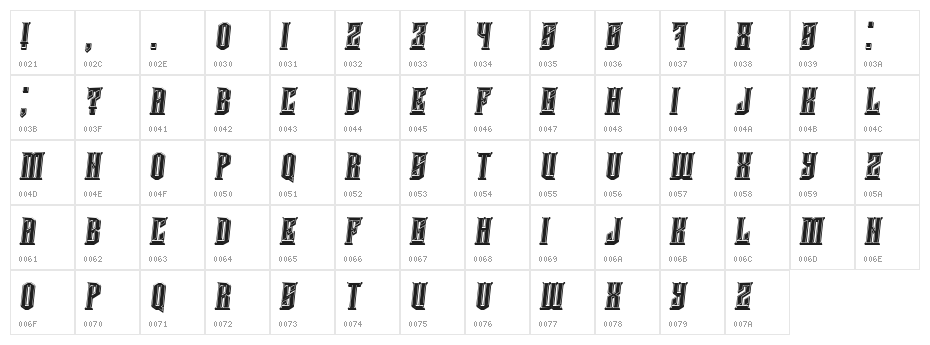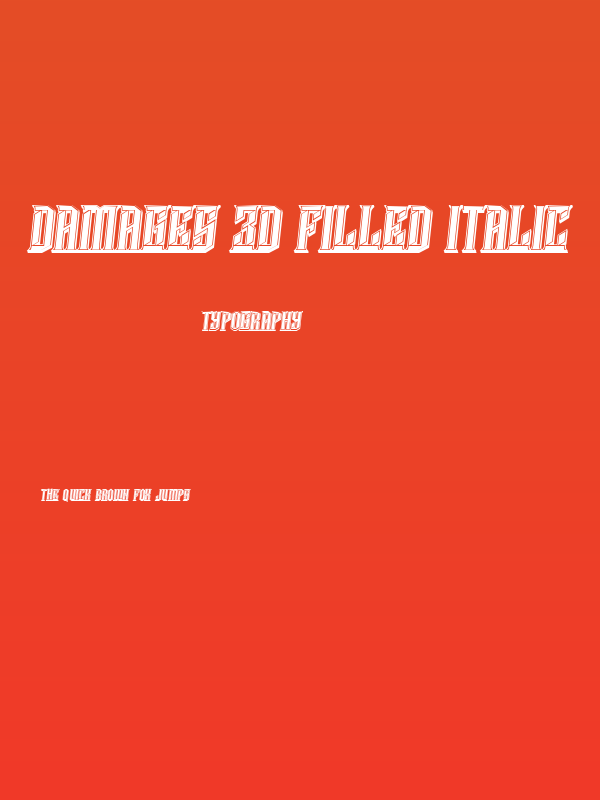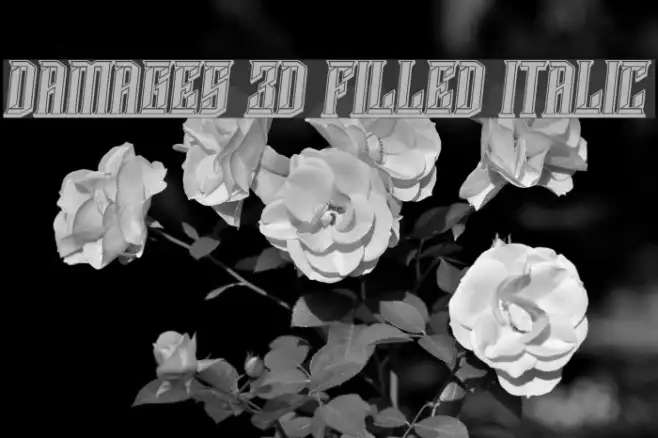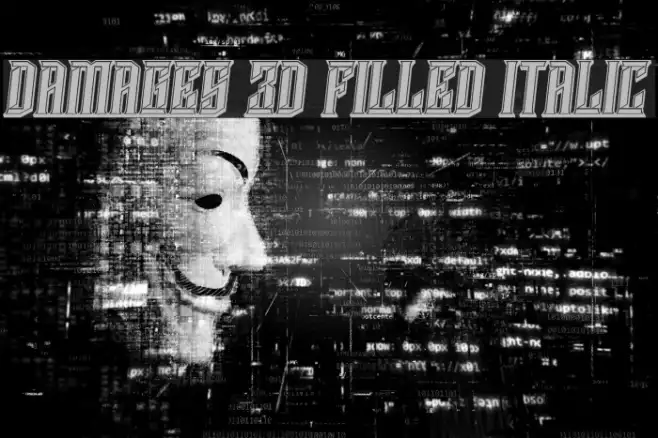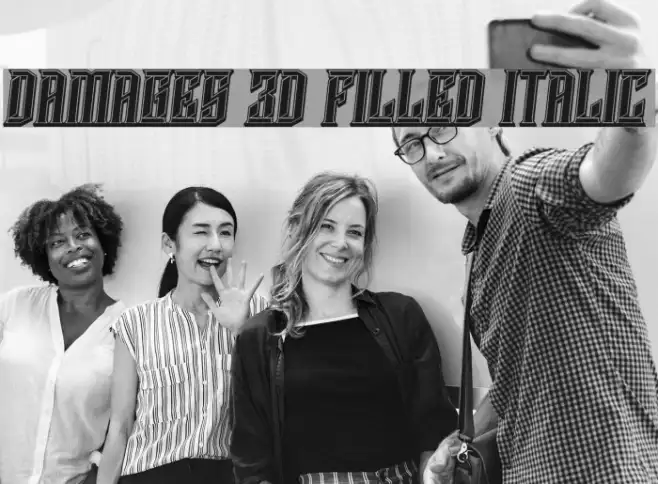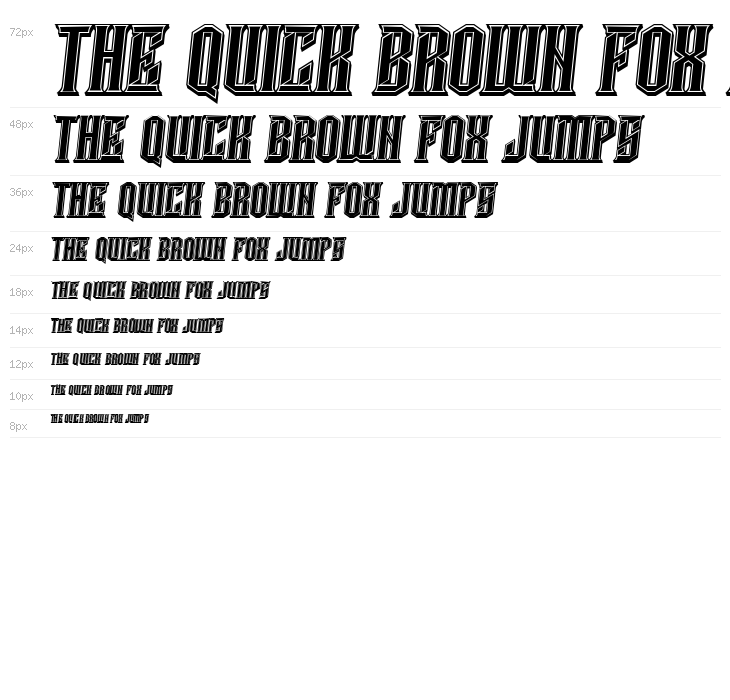
Damages 3D Filled Italic Font
Damages 3D Filled Italic Description
This font features a bold, three-dimensional appearance with a filled interior, giving it a striking and impactful look. The italicized style adds a dynamic and forward-leaning energy to the characters. Each letter is outlined with a thick border, enhancing the 3D effect and making the text stand out prominently. The font's design is reminiscent of vintage signage or sports team logos, with a modern twist. Its boldness and unique style make it suitable for attention-grabbing headlines or branding materials. The characters are tightly spaced, contributing to the compact and cohesive appearance of the text.
| Proposed Projects | Ideal for sports branding, event posters, or dynamic headlines. |